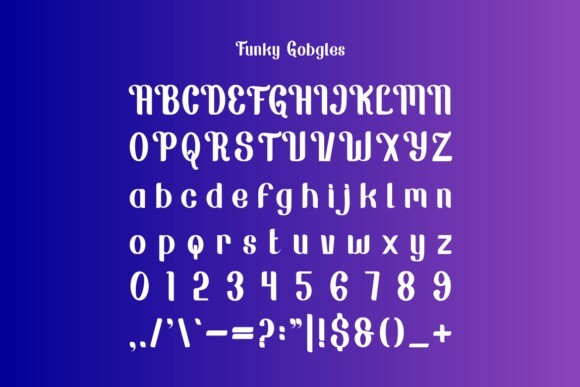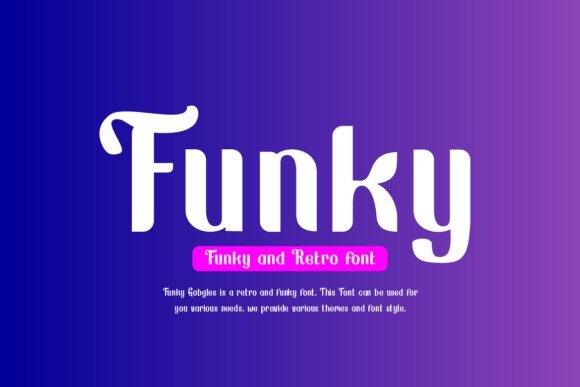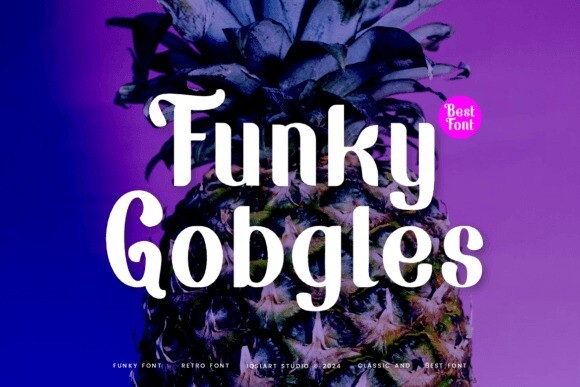
Funky Gobgles Font
Designer: IqsiartStudio
Funky Goggles Font is a cool and playful retro font with bold, wavy letters. It has a fun, funky style that gives off a groovy, 70s vibe, making it great for creative and eye-catching designs!